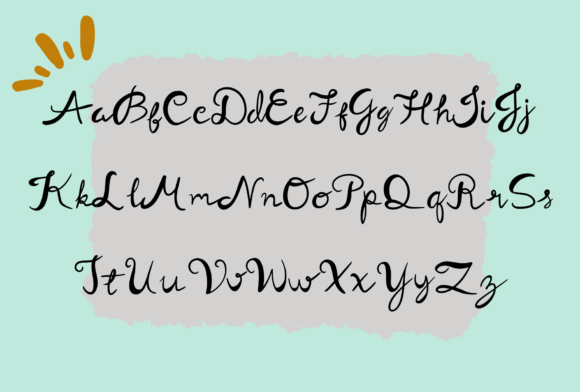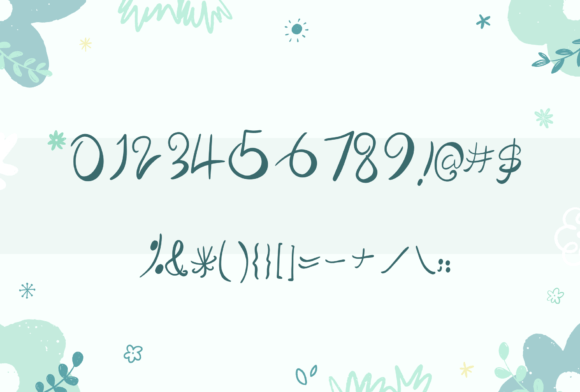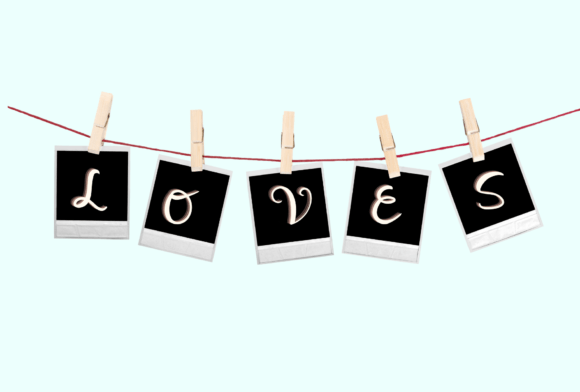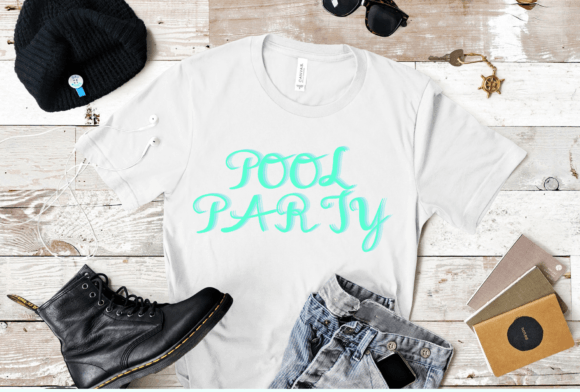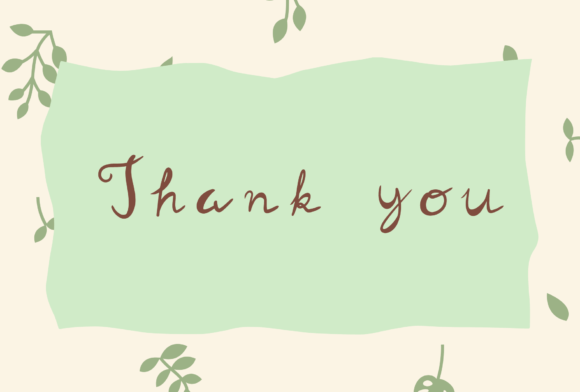
Introduction to Penelope Font
Do you remember that moment when you stumbled upon the perfect font for your creative project? For many designers, it’s a moment of pure joy and excitement. And if you’re looking for a font that will bring that same sense of happiness to your designs, look no further than the Penelope Font.
With its sweet and quirky handwritten style, the Penelope Font is the perfect design resource for anyone looking to add a touch of personality to their work. Whether you’re working on a digital design project, creating a presentation, or making greeting cards, this high-quality font is sure to become your new favorite go-to.
One of the best things about the Penelope Font is its versatility. You can use it on a transparent background or as a bold statement piece, and it’s available for free download, making it a valuable resource for designers of all levels.
Key Features of Penelope Font
- Penelope Font is a unique and stylish font, ideal for adding a touch of elegance to any design project.
- Perfect for designers who need a reliable and high-quality design resource for their creative projects.
Honest Review: Penelope Font
I recently came across the Penelope Font and I must say, it’s a great addition to any designer’s toolkit. The Penelope Font is a high-quality design resource that’s perfect for any creative project that requires a touch of elegance and sophistication.
What works well about the Penelope Font is its versatility. It comes in a range of styles, from casual to formal, making it suitable for a variety of design projects. The font is also available for free download, which is a huge bonus for designers on a budget.
The Penelope Font also features a transparent background, which makes it easy to customize and integrate into any design. This is especially useful for designers who need to create visually appealing graphics with complex backgrounds.
Overall, I’m impressed with the Penelope Font and would definitely recommend it to designers who are looking for a high-quality, versatile font for their next project.
Tips for Getting the Most Out of Penelope Font
Use Penelope Font with a transparent background to create a high-quality design.
Experiment with different font sizes and styles to add depth to your design.
Penelope Font is perfect for creative projects such as:
Infographics
Brochures
Posters
Business cards
Alternatives to Penelope Font
Lato is a modern sans-serif font ideal for creative projects requiring a clean and minimalistic design. It offers a high-quality, transparent background and is perfect for websites and digital products. Use Lato when you need a simple yet elegant font for your design resource. It’s a great alternative to Penelope Font, as it provides a more modern and sleek look.
Arimo Font
Arimo is a sans-serif font suitable for a wide range of design applications, from business cards to digital products. It features a high-quality design with a transparent background, making it an excellent choice for designers. Arimo is a great option when you need a font that is both readable and visually appealing. Compared to Penelope Font, Arimo has a more geometric and modern feel.
Montserrat is a popular sans-serif font designed for use in digital products, including websites and mobile applications. It offers a high-quality design with a transparent background, making it a great design resource for creative projects. Use Montserrat when you need a font that is both modern and versatile. Montserrat is a good alternative to Penelope Font, as it provides a similar feel with a more urban and industrial aesthetic.